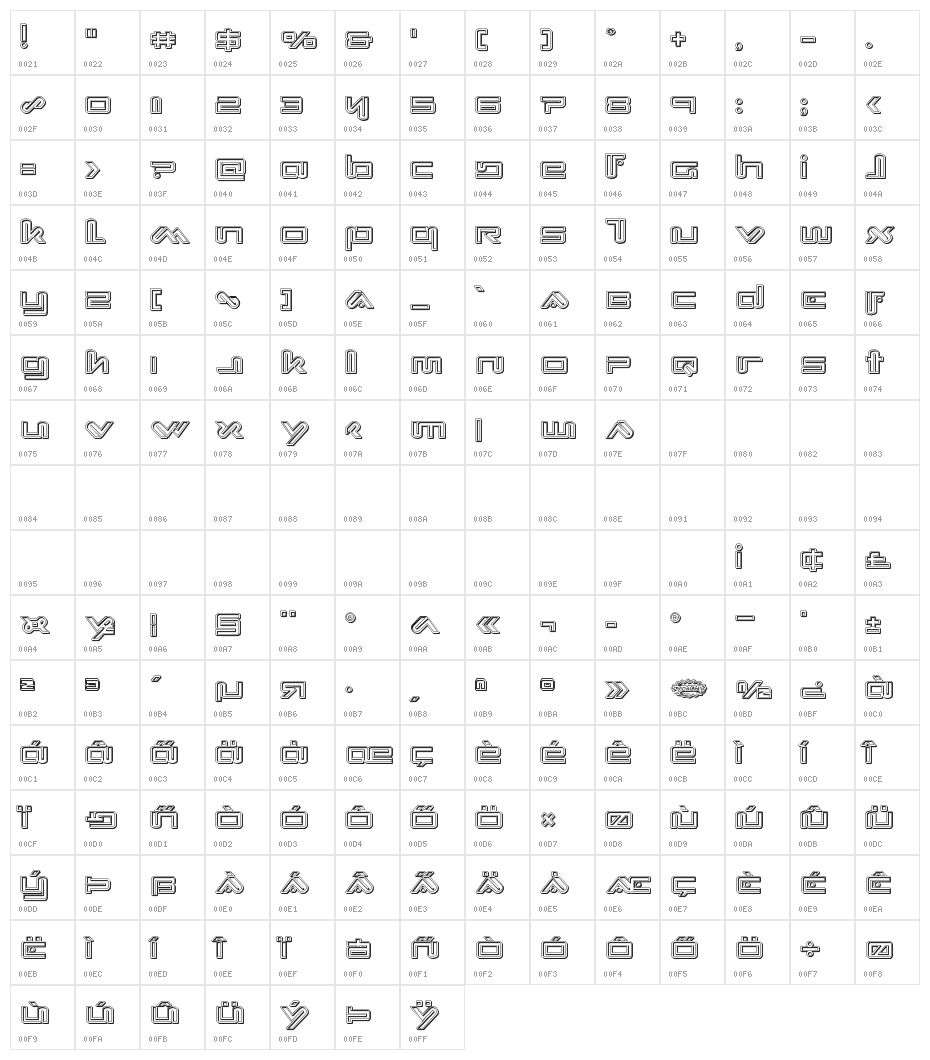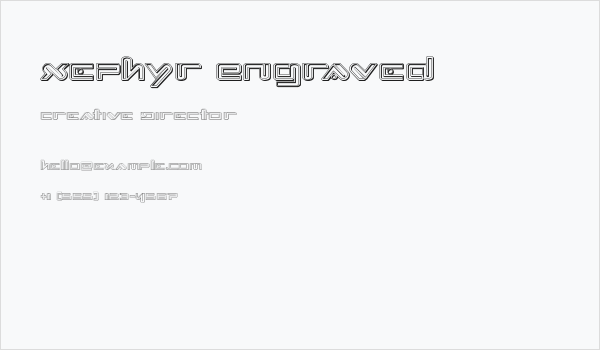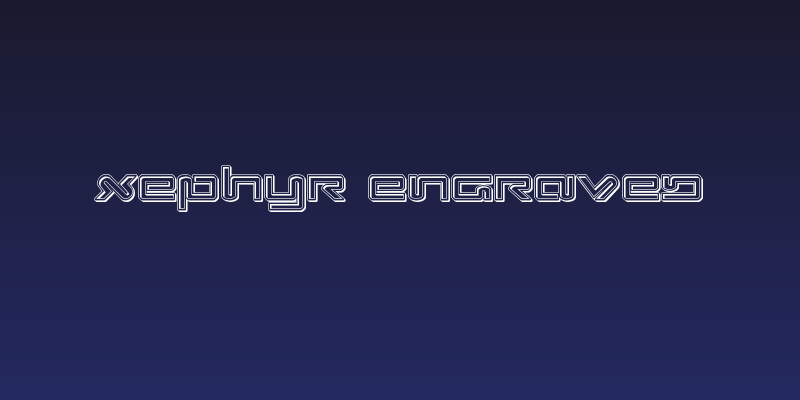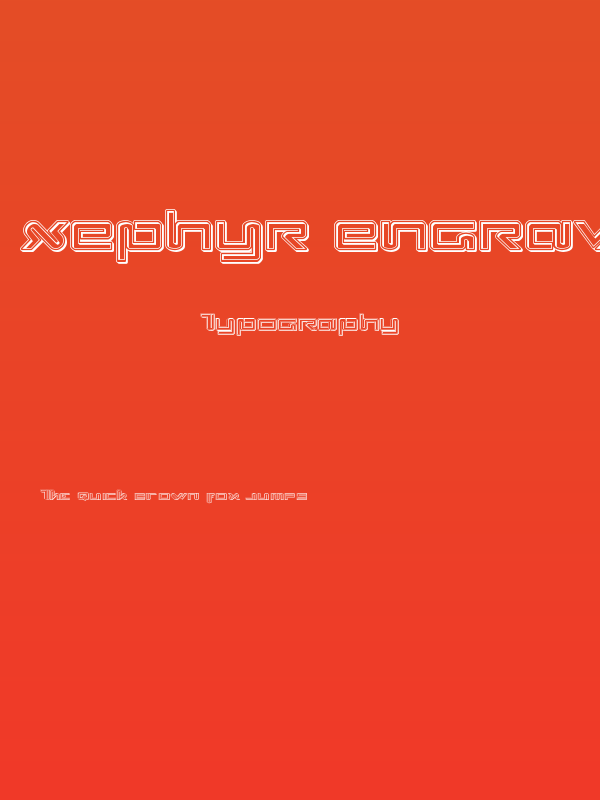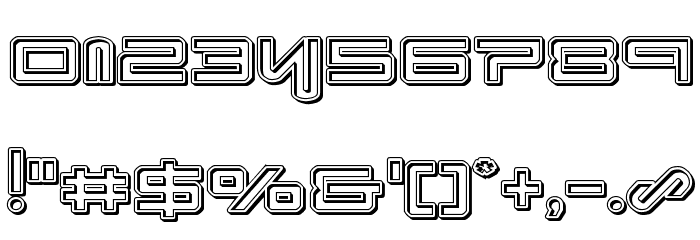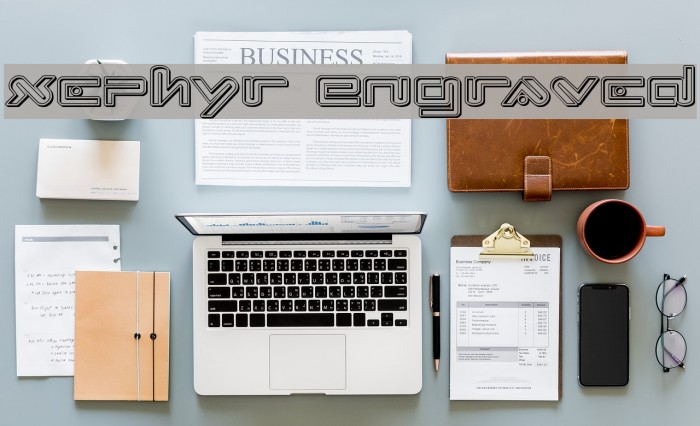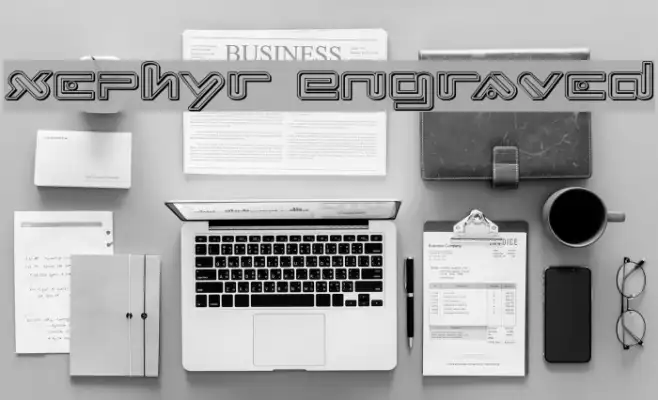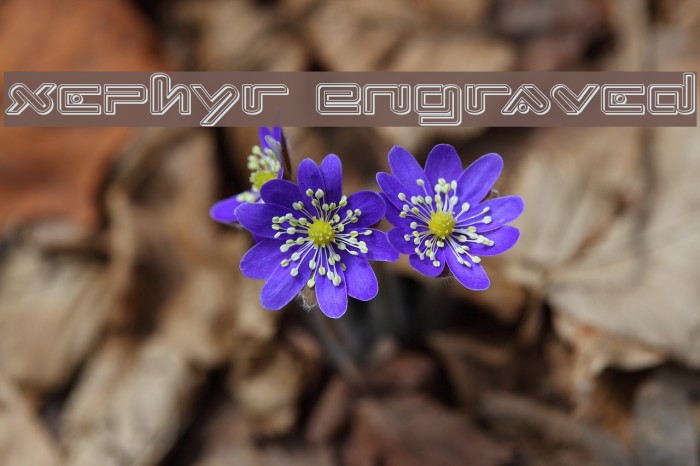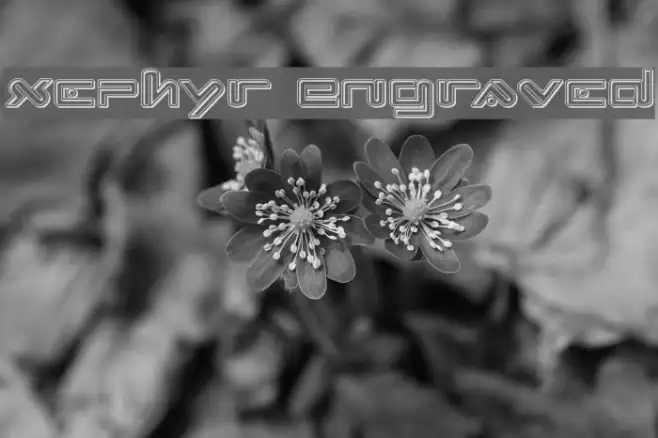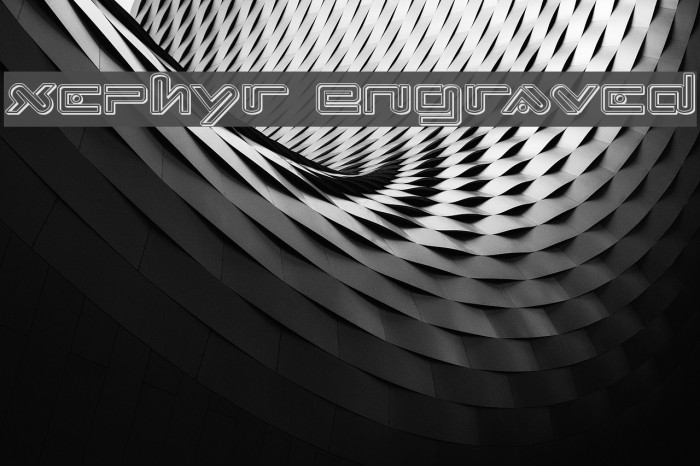
Xephyr Engraved Font
Xephyr Engraved Description
This font features a unique, futuristic design with an engraved, three-dimensional appearance. The characters are outlined with a double line, creating a layered effect that adds depth and complexity. The geometric shapes and sharp angles give it a modern, tech-inspired look. Each letter is distinct, with a consistent style that maintains readability while offering a decorative flair. The numerals and special characters follow the same design principles, ensuring a cohesive appearance across all elements. This font is ideal for projects that require a bold, standout typeface with a touch of sophistication.
| Proposed Projects | Ideal for sci-fi themed designs, tech branding, video game titles, and futuristic posters. |